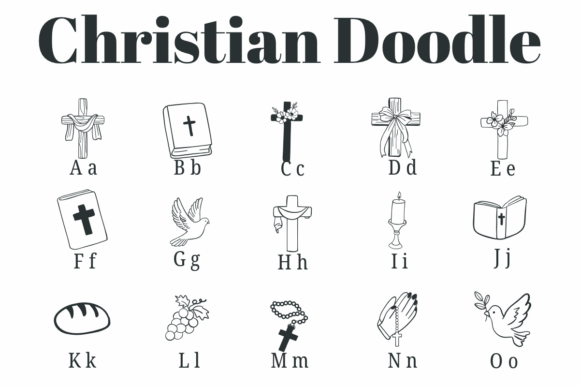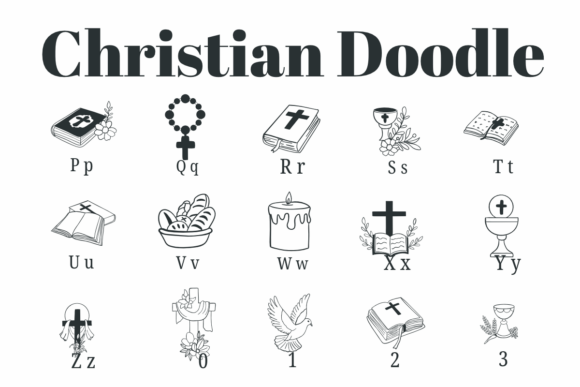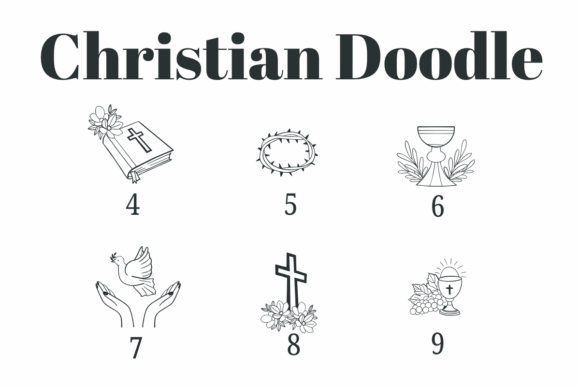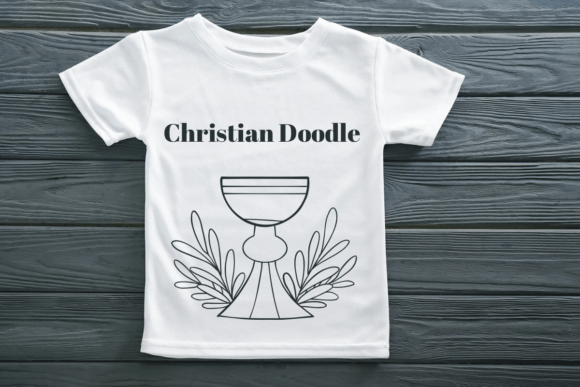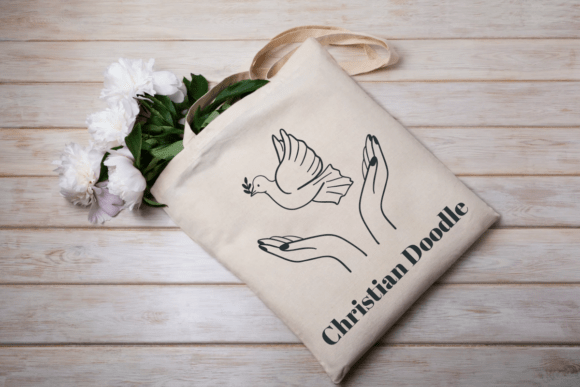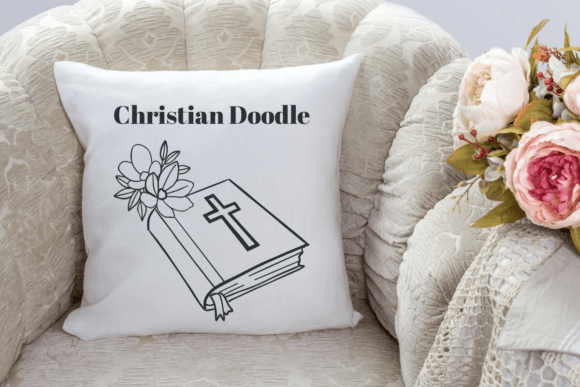
Introducing Christian Doodle Font: A Unique Dingbats Font for Creative Projects
Are you a designer, crafter, or DIY enthusiast looking for a unique and creative way to add a personal touch to your projects? Look no further than the Christian Doodle Font, a one-of-a-kind dingbats font that’s sure to inspire and delight. In this article, we’ll take a closer look at this amazing font and explore how you can use it to take your creative projects to the next level.
What is Christian Doodle Font?
Christian Doodle Font is a distinctive dingbats font that’s packed with a wide range of creative and inspiring symbols, icons, and graphics. From crosses and angels to flowers and birds, this font is filled with beautiful and meaningful images that are perfect for a variety of projects, including scrapbooking, card making, crafting, and more.
Key Features of Christian Doodle Font
So, what makes Christian Doodle Font so special? Here are just a few of its key features:
- Unique and exclusive design: Christian Doodle Font is a one-of-a-kind font that’s been carefully crafted to provide a distinctive and eye-catching look.
- Wide range of symbols and icons: This font includes a vast array of symbols, icons, and graphics, ensuring that you’ll always find the perfect image for your project.
- Easily scalable: Christian Doodle Font is designed to be easily scalable, making it perfect for use in a wide range of projects, from small crafts to large-scale designs.
How to Use Christian Doodle Font in Your Projects
Christian Doodle Font is incredibly versatile and can be used in a wide range of creative projects. Here are just a few ideas to get you started:
- Scrapbooking: Add a personal touch to your scrapbook pages with Christian Doodle Font’s beautiful symbols and icons.
- Card making: Create stunning greeting cards for special occasions using this font’s gorgeous graphics.
- Crafting: Use Christian Doodle Font to add a decorative touch to your craft projects, such as journals, planners, and gift tags.
- Digital design: Incorporate this font into your digital designs, such as social media graphics, blog posts, and website headers.
Tips and Tricks for Getting the Most Out of Christian Doodle Font
To help you get the most out of Christian Doodle Font, here are a few tips and tricks:
- Experiment with different colors and textures: Add depth and interest to your designs by experimenting with different colors and textures.
- Combine with other fonts: Pair Christian Doodle Font with other fonts to create a unique and eye-catching look.
- Use as a design element: Use this font as a design element to add visual interest to your projects.
Christian Doodle Font is a unique and inspiring dingbats font that’s perfect for designers, crafters, and DIY enthusiasts. With its wide range of creative and meaningful symbols, icons, and graphics, this font is sure to add a personal touch to your projects. Whether you’re working on a scrapbook page, greeting card, or digital design, Christian Doodle Font is a great choice. So why wait? Download Christian Doodle Font today and start creating!
Christian Doodle is a unique dingbats font. Add it to your creative projects and enjoy the results!